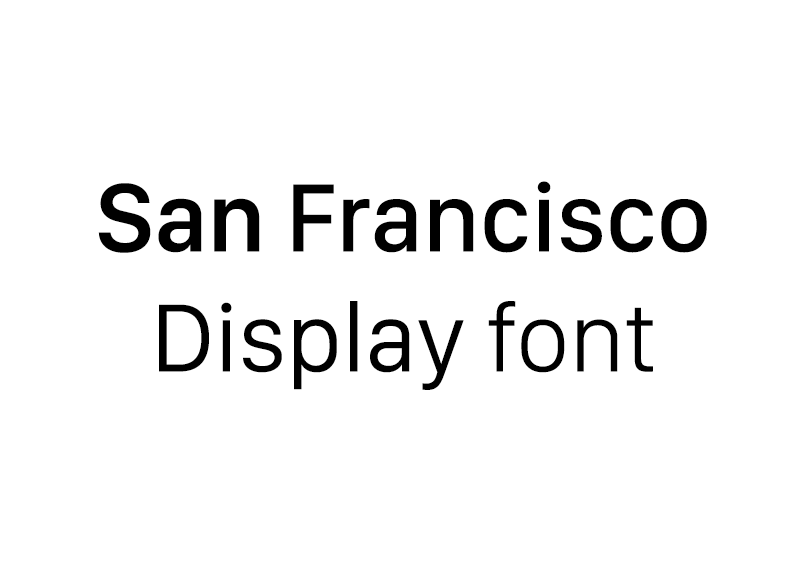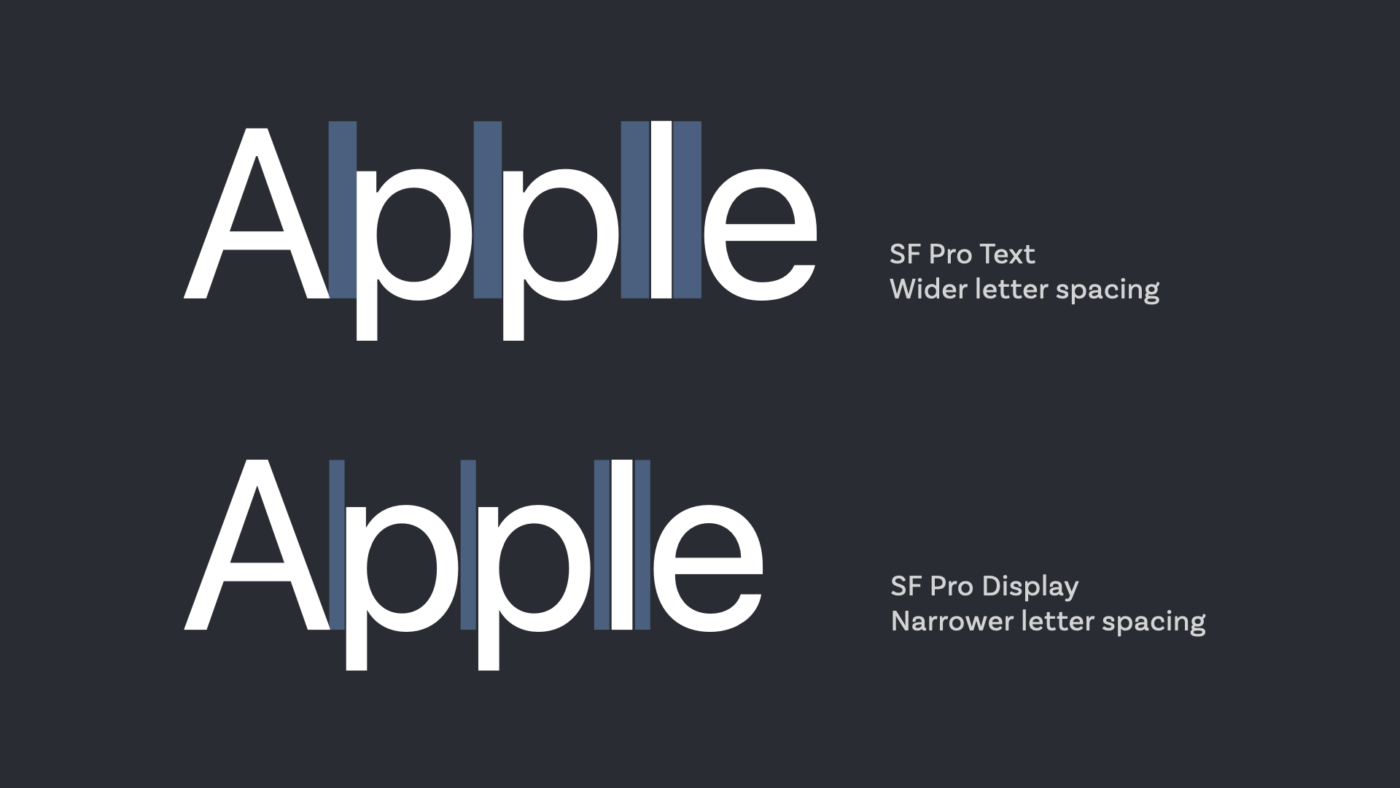
Sf Display Font . sf pro display font family designed by apple inc. i'd like to use apple's san francisco font on a site. Use sf pro text for text 19 points or smaller, and sf pro. You can download the sf pro display font to your. san francisco is an apple designed typeface that provides a consistent, legible, and friendly typographic voice. Select all of the font files and click the “extract” button in the. the fonts will be found by navigating to san francisco pro.pkg > payload > payload >. Moreover, you can embed it to your website. Has a total of 9 different styles. It was first released to developers on. 51 rows — — the entire collection of san francisco pro fonts. Across all apple products, the.
Moreover, you can embed it to your website. You can download the sf pro display font to your. Use sf pro text for text 19 points or smaller, and sf pro. the fonts will be found by navigating to san francisco pro.pkg > payload > payload >. sf pro display font family designed by apple inc. Across all apple products, the. Select all of the font files and click the “extract” button in the. san francisco is an apple designed typeface that provides a consistent, legible, and friendly typographic voice. 51 rows — — the entire collection of san francisco pro fonts. i'd like to use apple's san francisco font on a site.
San Francisco Pro Display font
Sf Display Font Select all of the font files and click the “extract” button in the. Across all apple products, the. Select all of the font files and click the “extract” button in the. i'd like to use apple's san francisco font on a site. sf pro display font family designed by apple inc. It was first released to developers on. You can download the sf pro display font to your. Moreover, you can embed it to your website. 51 rows — — the entire collection of san francisco pro fonts. Use sf pro text for text 19 points or smaller, and sf pro. the fonts will be found by navigating to san francisco pro.pkg > payload > payload >. san francisco is an apple designed typeface that provides a consistent, legible, and friendly typographic voice. Has a total of 9 different styles.
Identifont San Francisco Display Sf Display Font sf pro display font family designed by apple inc. Across all apple products, the. Moreover, you can embed it to your website. the fonts will be found by navigating to san francisco pro.pkg > payload > payload >. Has a total of 9 different styles. It was first released to developers on. You can download the sf pro. Sf Display Font.
San Francisco Font Free Dafont Free Sf Display Font Across all apple products, the. san francisco is an apple designed typeface that provides a consistent, legible, and friendly typographic voice. 51 rows — — the entire collection of san francisco pro fonts. Moreover, you can embed it to your website. You can download the sf pro display font to your. sf pro display font family designed. Sf Display Font.
SF Pro Display Figma Sf Display Font san francisco is an apple designed typeface that provides a consistent, legible, and friendly typographic voice. It was first released to developers on. You can download the sf pro display font to your. Use sf pro text for text 19 points or smaller, and sf pro. i'd like to use apple's san francisco font on a site. . Sf Display Font.
SF Pro Display Regular 02.0d2e1 Fonts Free Download Sf Display Font the fonts will be found by navigating to san francisco pro.pkg > payload > payload >. 51 rows — — the entire collection of san francisco pro fonts. sf pro display font family designed by apple inc. san francisco is an apple designed typeface that provides a consistent, legible, and friendly typographic voice. It was first. Sf Display Font.
San Francisco Display Font (Cyrillic) by Bogun99 on DeviantArt Sf Display Font i'd like to use apple's san francisco font on a site. It was first released to developers on. sf pro display font family designed by apple inc. 51 rows — — the entire collection of san francisco pro fonts. san francisco is an apple designed typeface that provides a consistent, legible, and friendly typographic voice. Use. Sf Display Font.
Sf pro display шрифт для figma Sf Display Font Moreover, you can embed it to your website. 51 rows — — the entire collection of san francisco pro fonts. the fonts will be found by navigating to san francisco pro.pkg > payload > payload >. Across all apple products, the. i'd like to use apple's san francisco font on a site. Select all of the font. Sf Display Font.